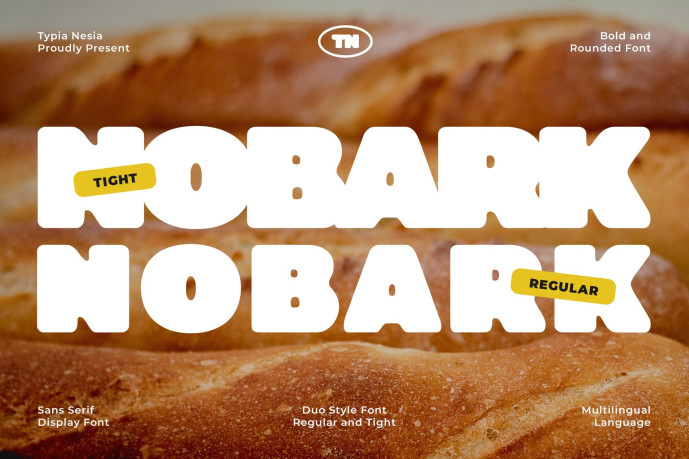
Nobark Font
Nobark Font is a Modern Rounded Bold Chunky Logo Sans Font designed to inject fun and approachability into your projects. This typeface is very bold and chunky, featuring smooth rounded edges that give it a friendly, attractive feel, making it perfect for high-impact headlines and memorable logo designs. It is especially well-suited for branding and packaging across the Food, Kids, Cafe, Bakery markets, and any projects that require modern bold and chunky. Nobark ensures your message is delivered with clarity, strength, and irresistible modern charm.